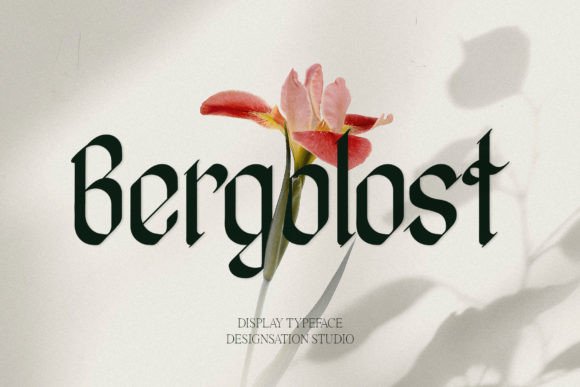
Unleash your creativity with Bergolost Font - the ultimate Halloween-themed blackletter font. A masterpiece crafted by Designsation, Bergolost is a dark and mysterious beauty that will cast a spell on your designs.
With its intricate details and flowing curves, Bergolost evokes the spirit of the macabre like no other. Whether you want to craft spooky invitations, spine-chilling posters, or haunting branding, Bergolost is your perfect companion.
Let your imagination run wild as you delve into the world of witchcraft, vampires, and ghouls. Bergolost will bring your Halloween creations to life, adding an eerie charm to every word.
Whether you're a seasoned designer or just starting, Bergolost is easy to use and offers endless possibilities. Unleash the dark artist within you and create captivating visuals that will send shivers down your audience's spines.